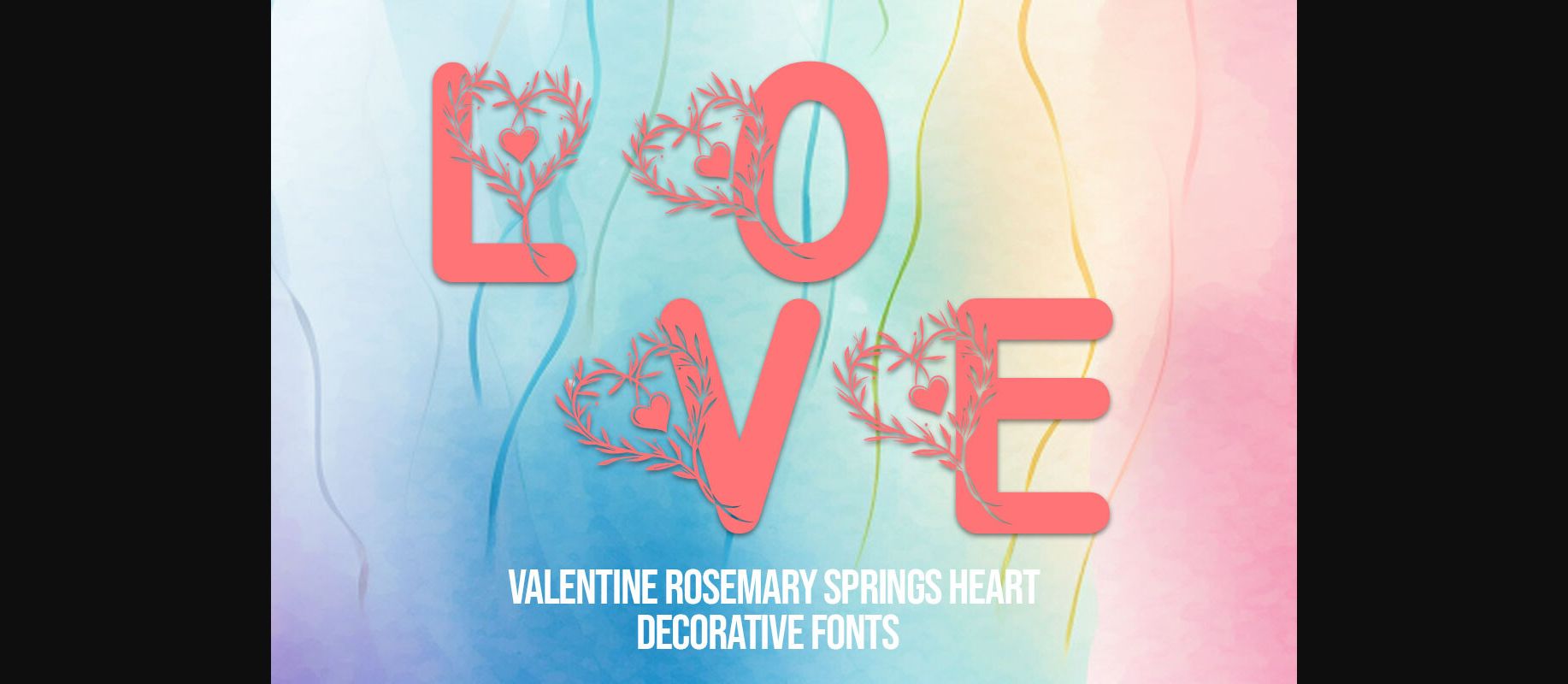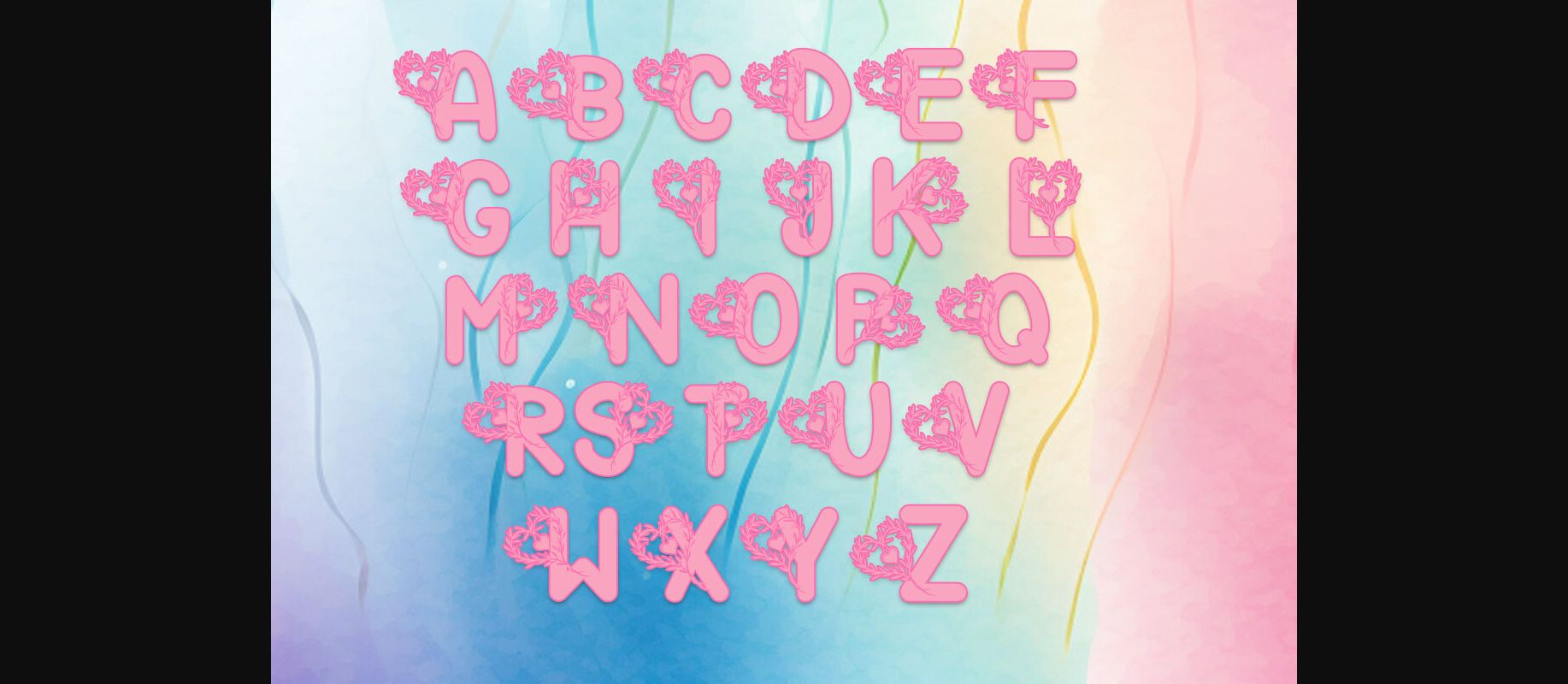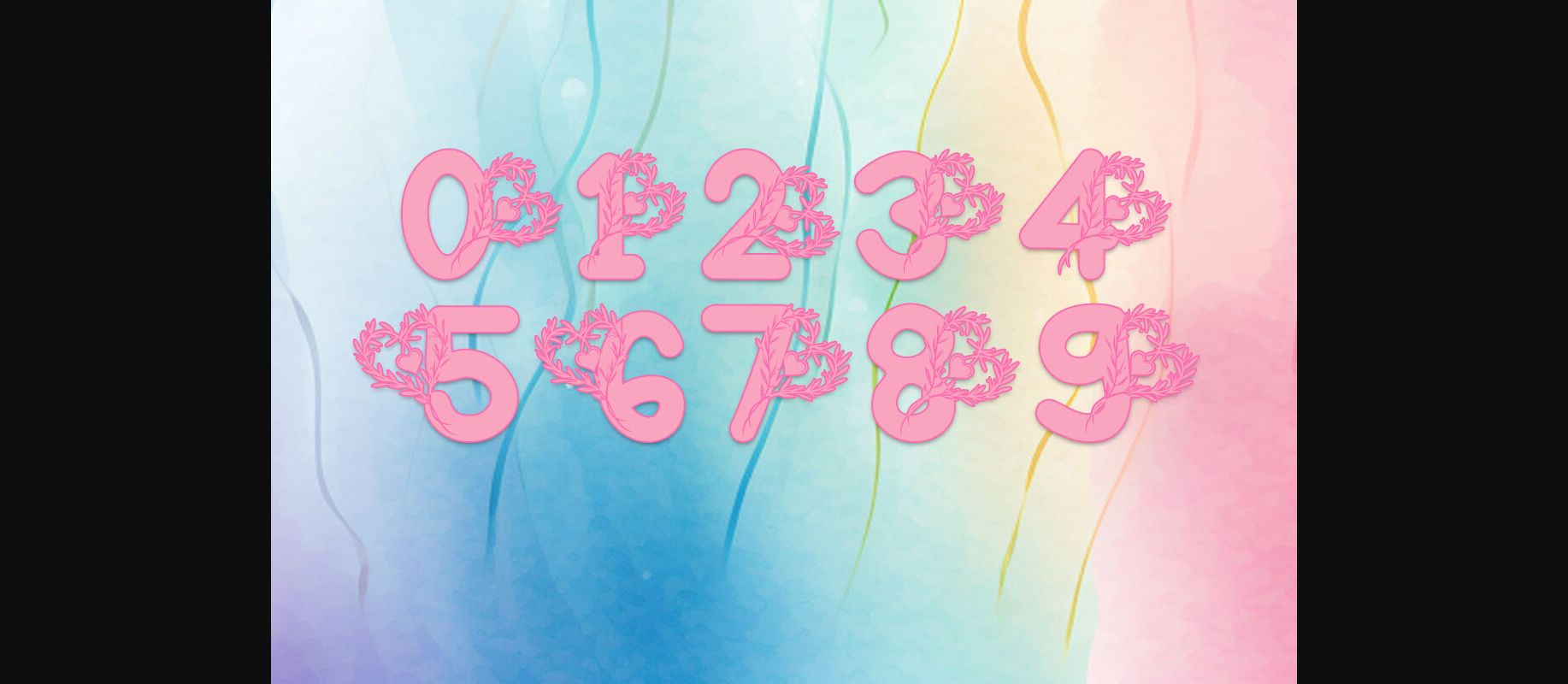
Valentine Rosemary Springs Heart Font
About Valentine Rosemary Springs Heart Font
Introducing our ‘Valentine Rosemary Springs Heart Decorative Fonts’ – a unique digital collection that intertwines the beauty of rosemary springs with the timeless elegance of hearts. With 26 captivating uppercase letters and a complete set of numbers 0-9, each character exudes the charm of decorative artistry. Infuse your designs with the delicate allure of Valentine’s sentiments, perfect for invitations, digital art, and romantic expressions. Let these fonts be your muse, evoking the essence of love and nature’s grace in every stroke